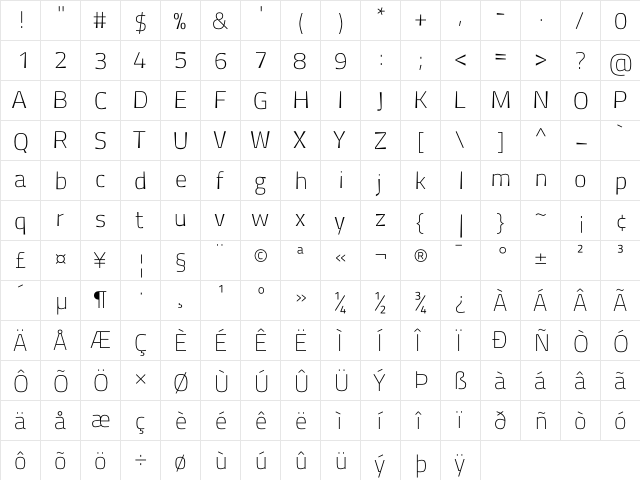
Antaro Regular
Design Context for Antaro Typeface
Antaro takes a measured approach to typography — its balanced proportions and neutral character make it a reliable workhorse for both digital and print work.
Pro Tip: Pair Antaro with a font of contrasting weight or personality to build a more expressive typographic hierarchy.